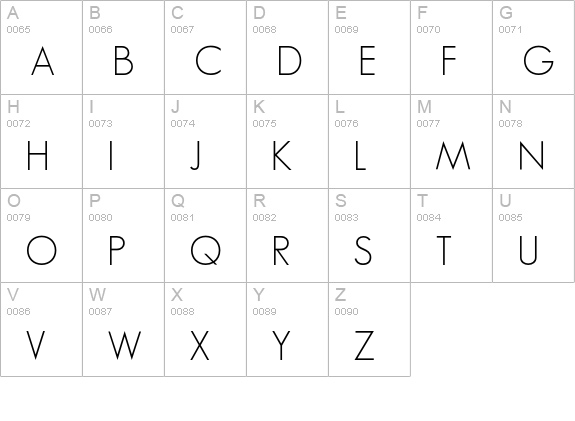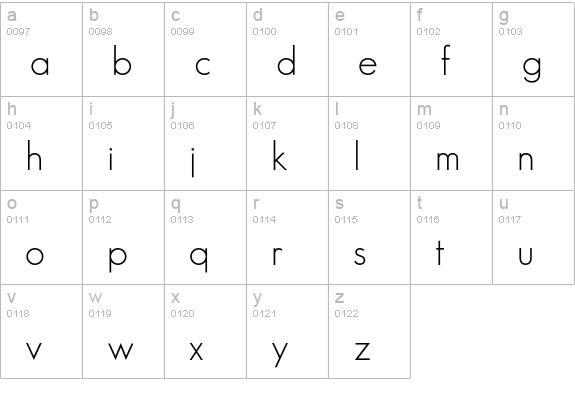
SansSerifFLF Font Details
SansSerifFLF is a stylish and versatile font that exudes a sense of modernity and elegance. It is the perfect choice for any design project that requires a clean and contemporary look. The font's smooth curves and balanced proportions make it highly legible, ensuring that your message is conveyed with clarity and precision. One of the best things about SansSerifFLF is that it is completely free. You can easily download this font from FontsMarket.com without any cost, making it an ideal option for designers on a budget. Whether you are working on a personal project or a professional assignment, SansSerifFLF offers a wide range of possibilities. With its wide range of weights and styles, SansSerifFLF can be used for various purposes. Whether you need a bold and eye-catching headline or a subtle and elegant body text, this font has got you covered. Its versatility extends to both print and digital media, making it suitable for websites, brochures, logos, posters, and much more. SansSerifFLF's clean and minimalist design makes it a timeless choice that will remain relevant for years to come. Its simplicity allows it to seamlessly blend with any design, while still adding a touch of sophistication. The font's subtle details and refined aesthetic make it perfect for a wide range of design styles, from minimalist to avant-garde. In conclusion, SansSerifFLF is a must-have font for any designer looking to add a touch of modernity and elegance to their projects. And the best part is, it's completely free! Don't miss the opportunity to enhance your designs with this versatile and visually appealing font. Head over to FontsMarket.com and download SansSerifFLF today!